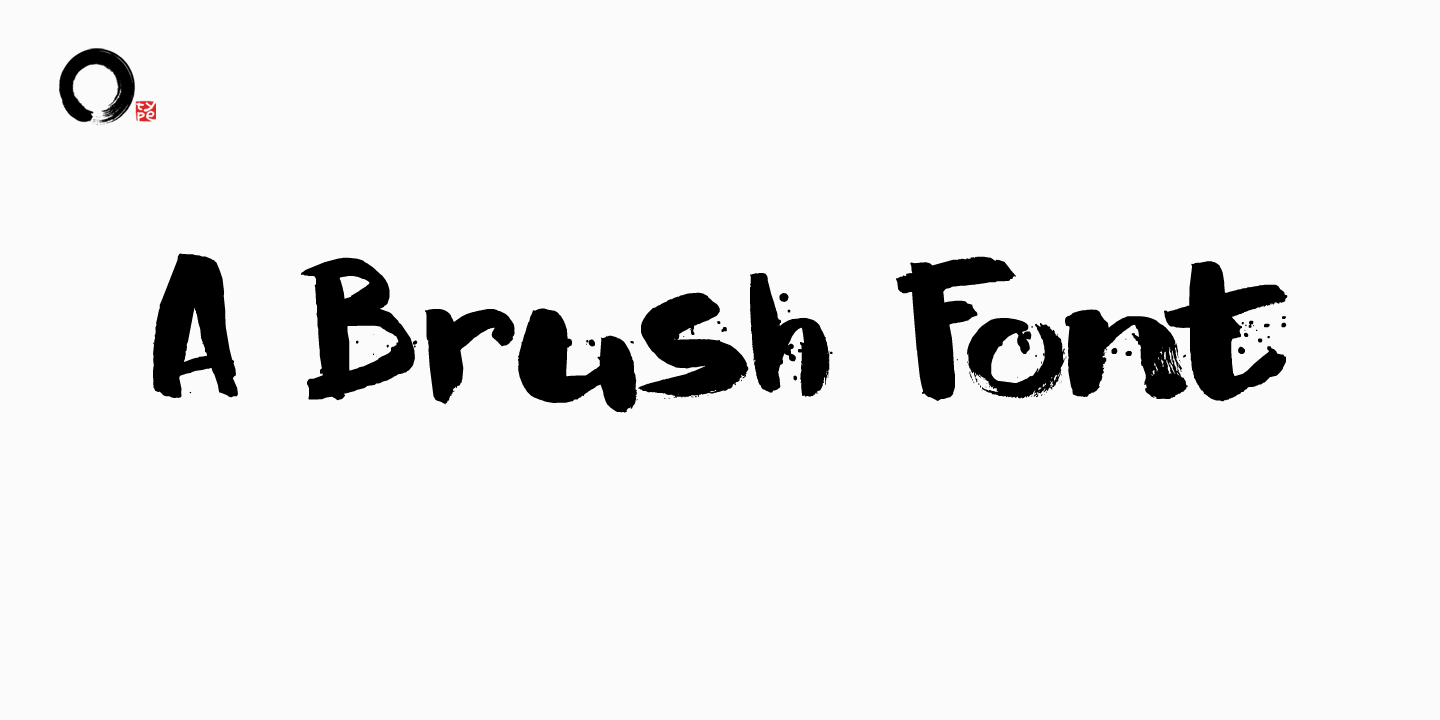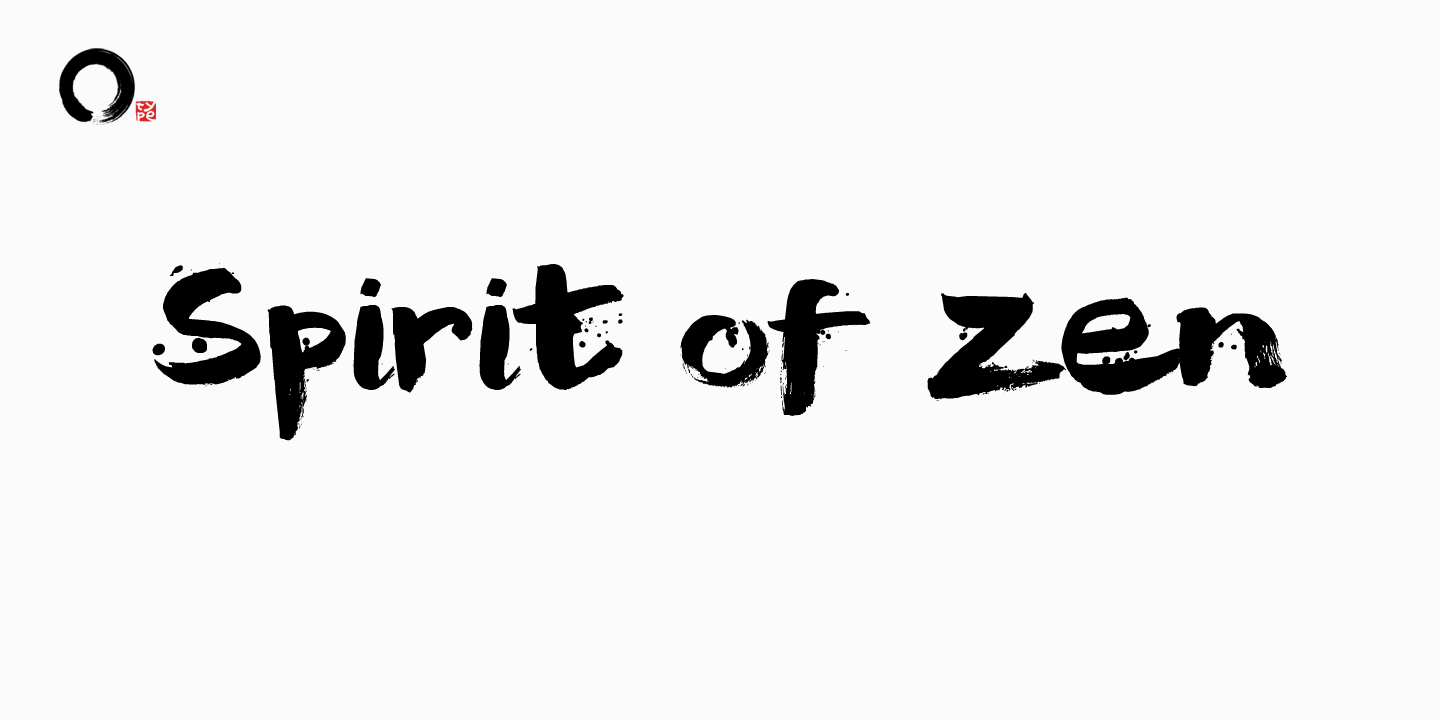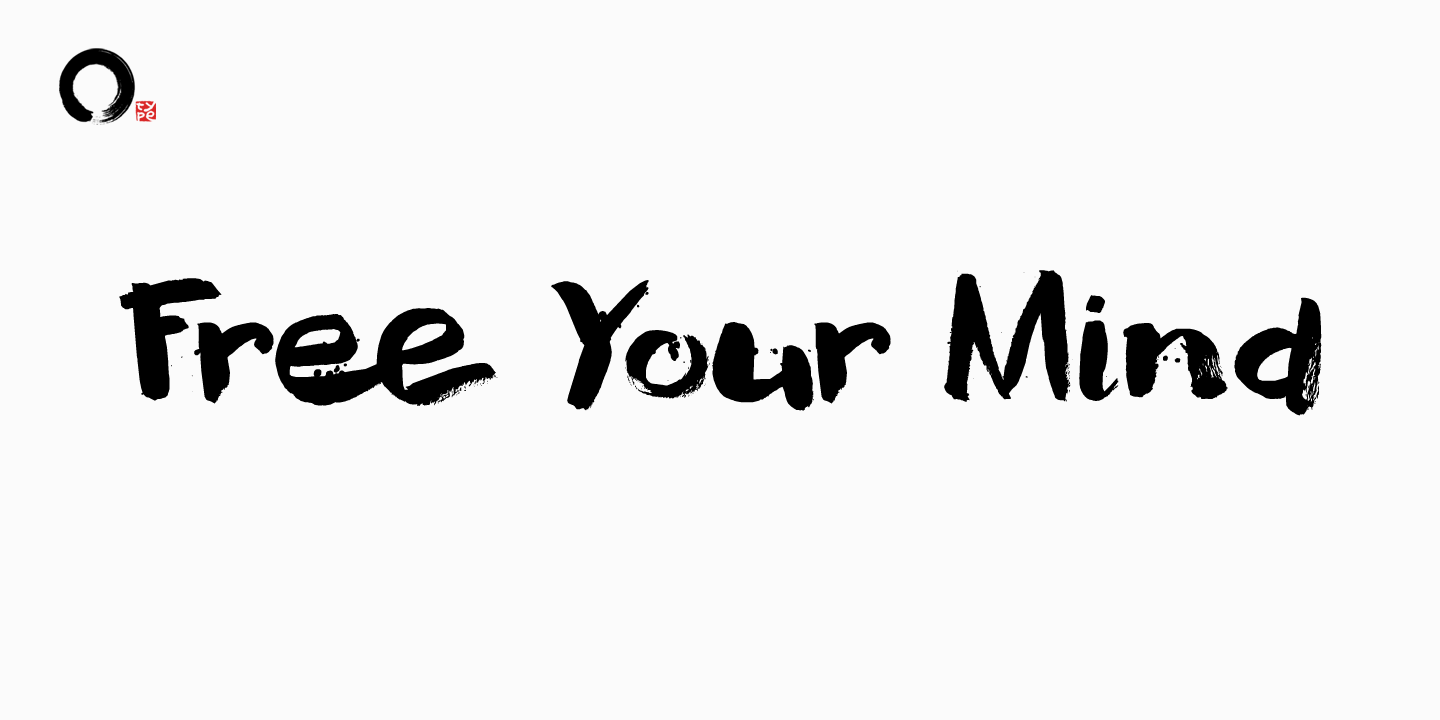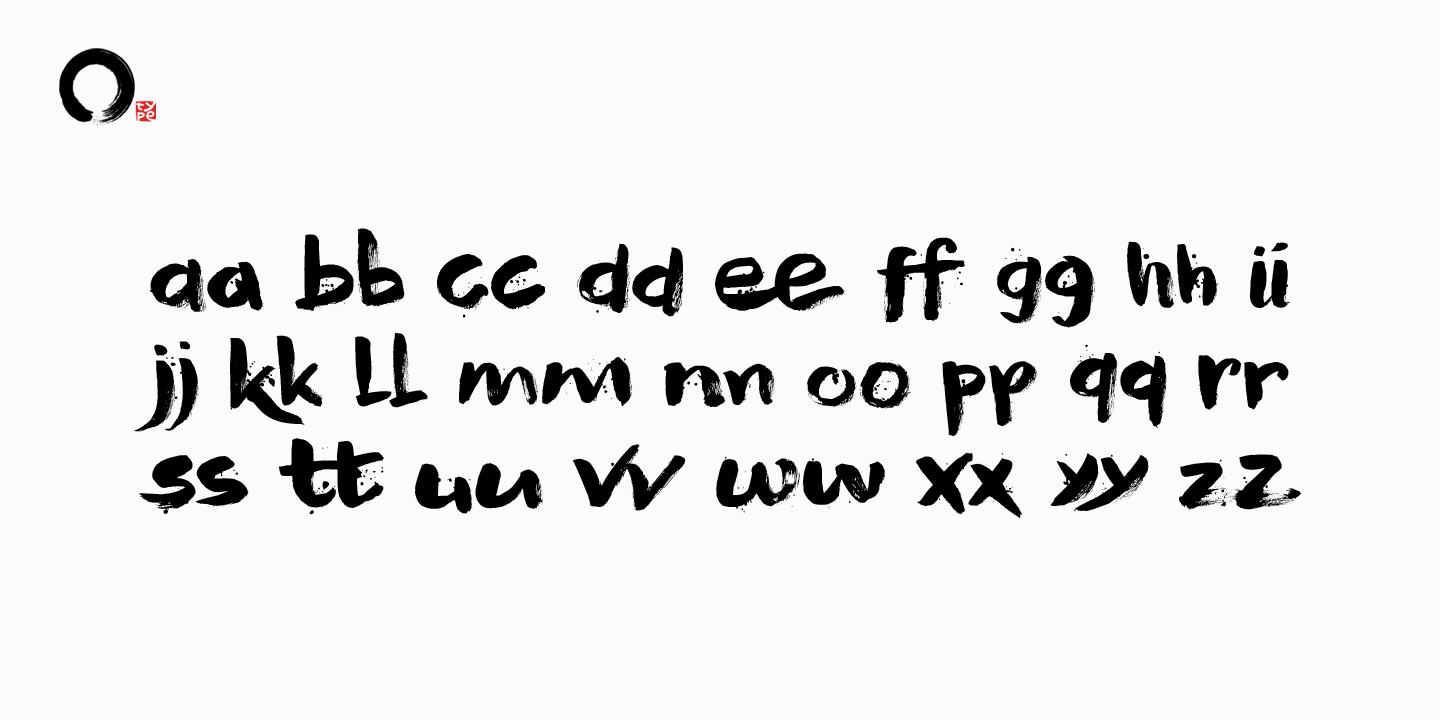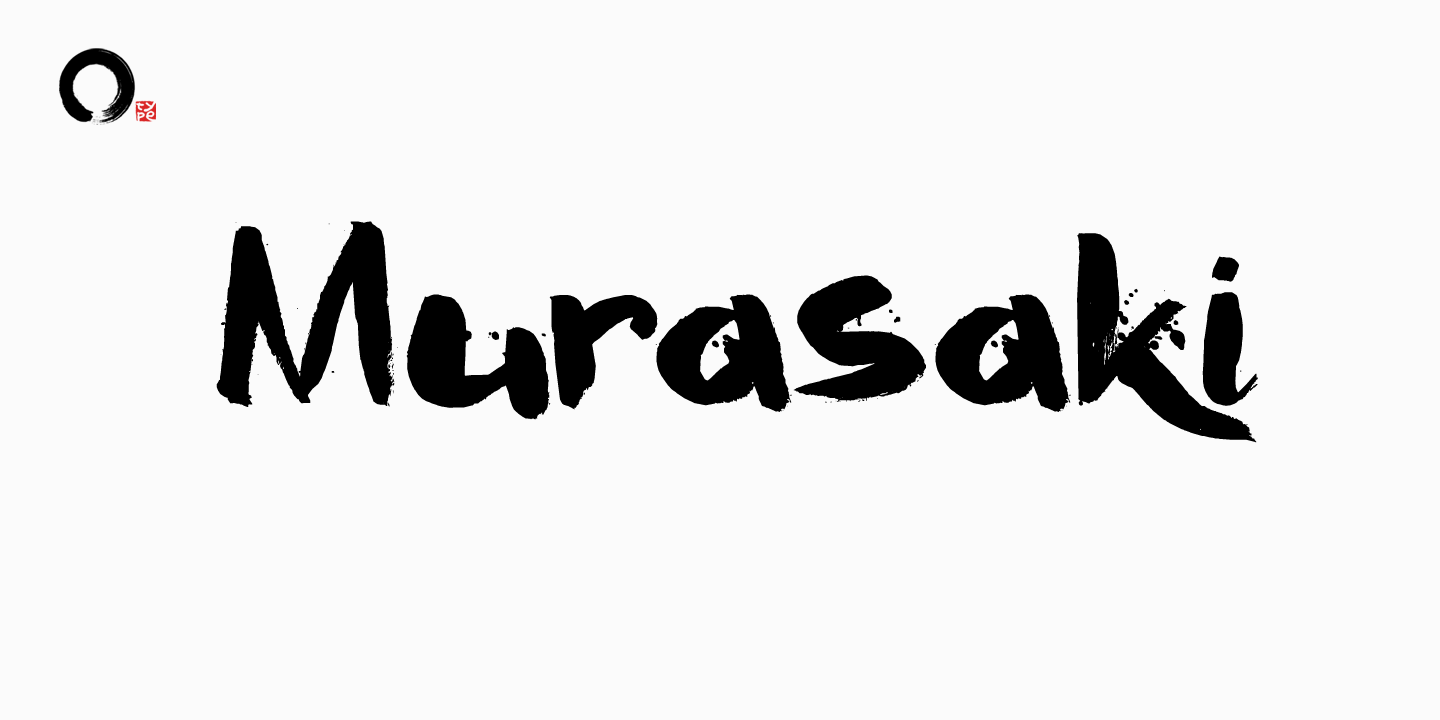
About Murasaki
Murasaki (?) means purple in Japanese. Murasaki font was made with a Japanese brush and ink. This multilingual font comes with double letter ligatures.